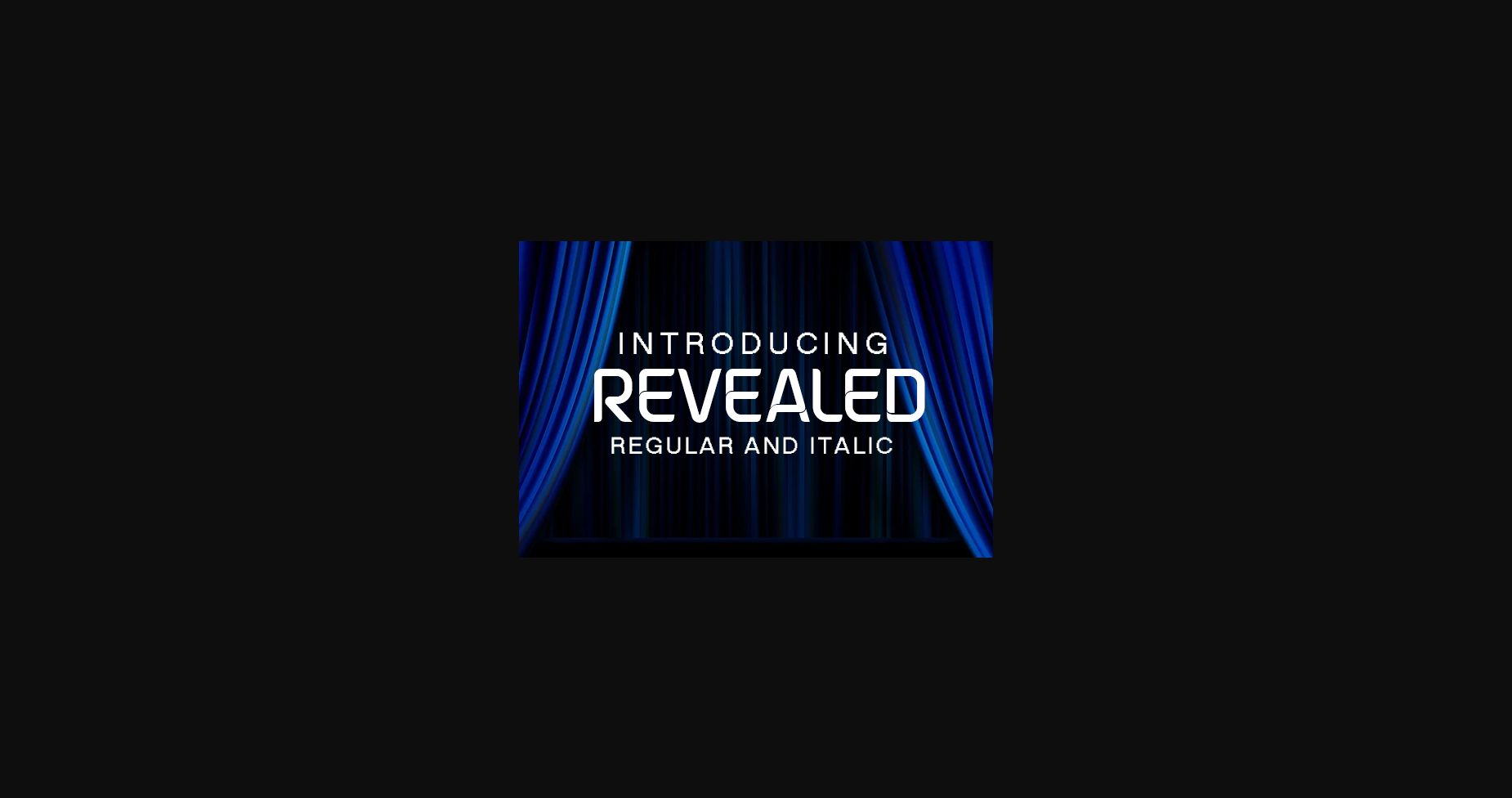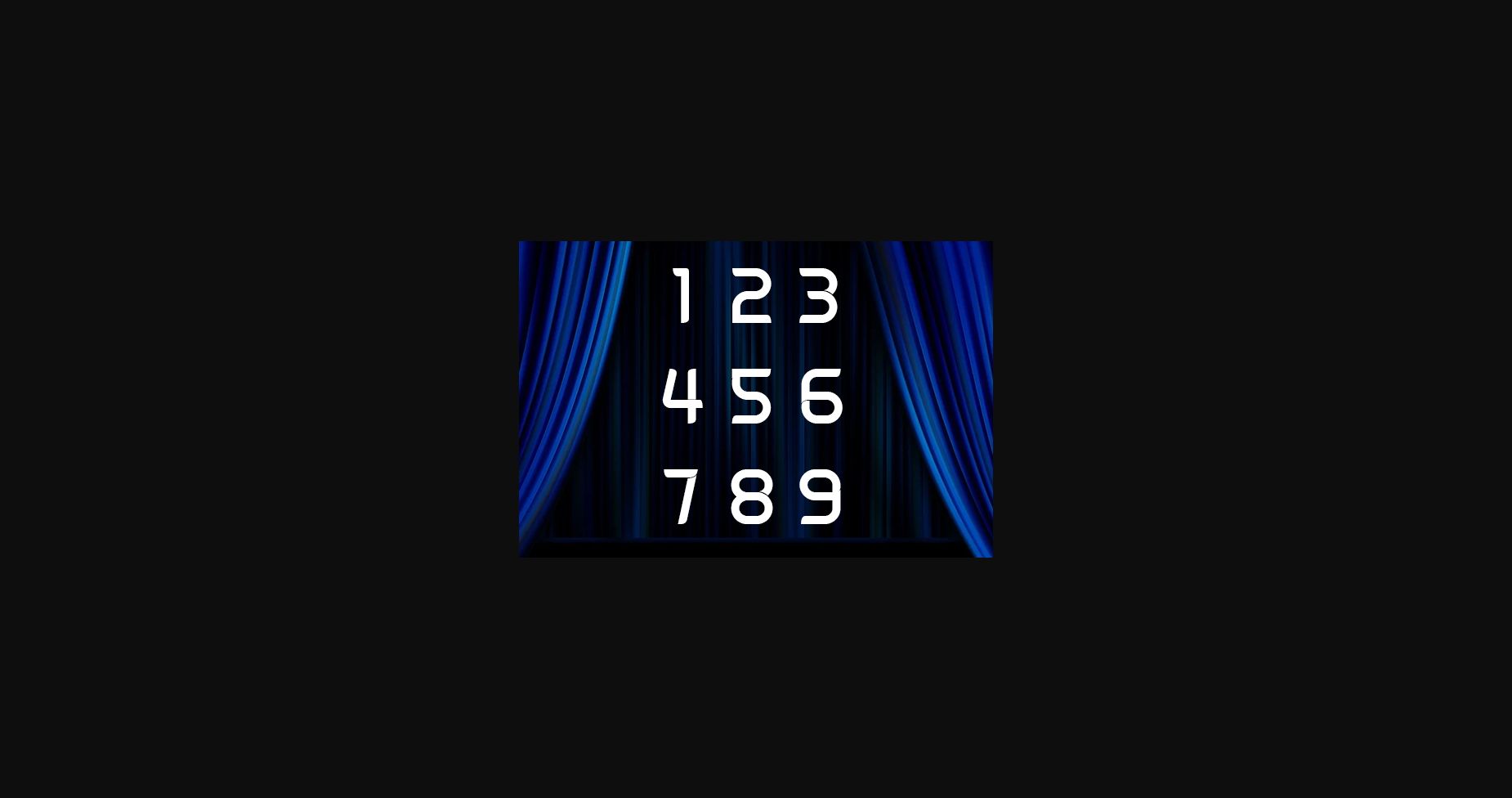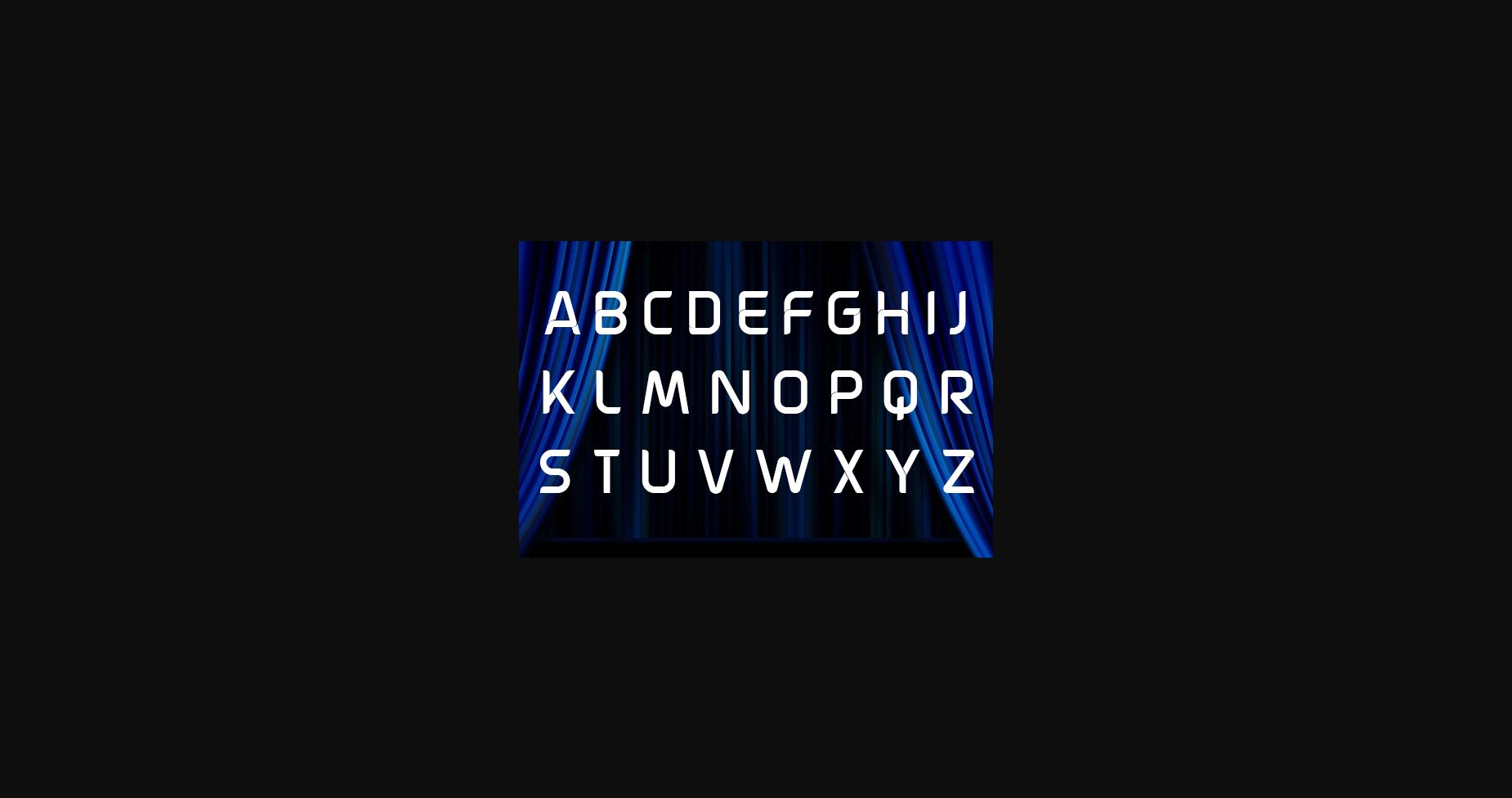
About Revealed Font
Revealed is a stylish and elegant Sans Serif font. It looks stunning on wedding invitations, thank you cards, quotes, greeting cards, logos, business cards, and any other design that needs a clean touch.